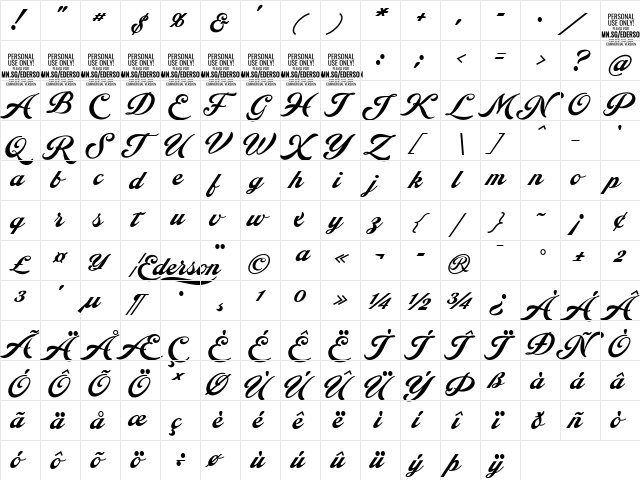
Ederson PERSONAL USE ONLY Regular
| Foundry | Mans Greback |
| Designer | Mans Greback |
Design Context for Ederson PERSONAL USE ONLY Typeface
Ederson PERSONAL USE ONLY is a composed and adaptable typeface that performs quietly and consistently across a wide range of design contexts.